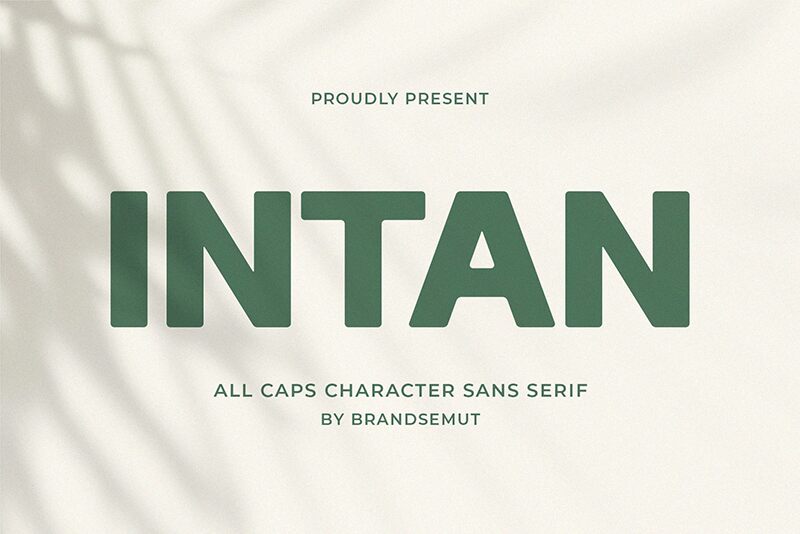
Intan
Intan is a striking sans-serif font that exudes a modern and minimalist aesthetic. Its clean, geometric letterforms convey a sense of sophistication and elegance. The bold, strokes and sharp, angular terminals lend the font a distinctly contemporary feel, making it well-suited for a range of design applications, from branding and packaging to editorial layouts and digital interfaces.
Intan's versatility allows it to seamlessly transition between formal and informal contexts, making it a versatile choice for designers seeking a striking typographic element to elevate their projects.
Brandsemut